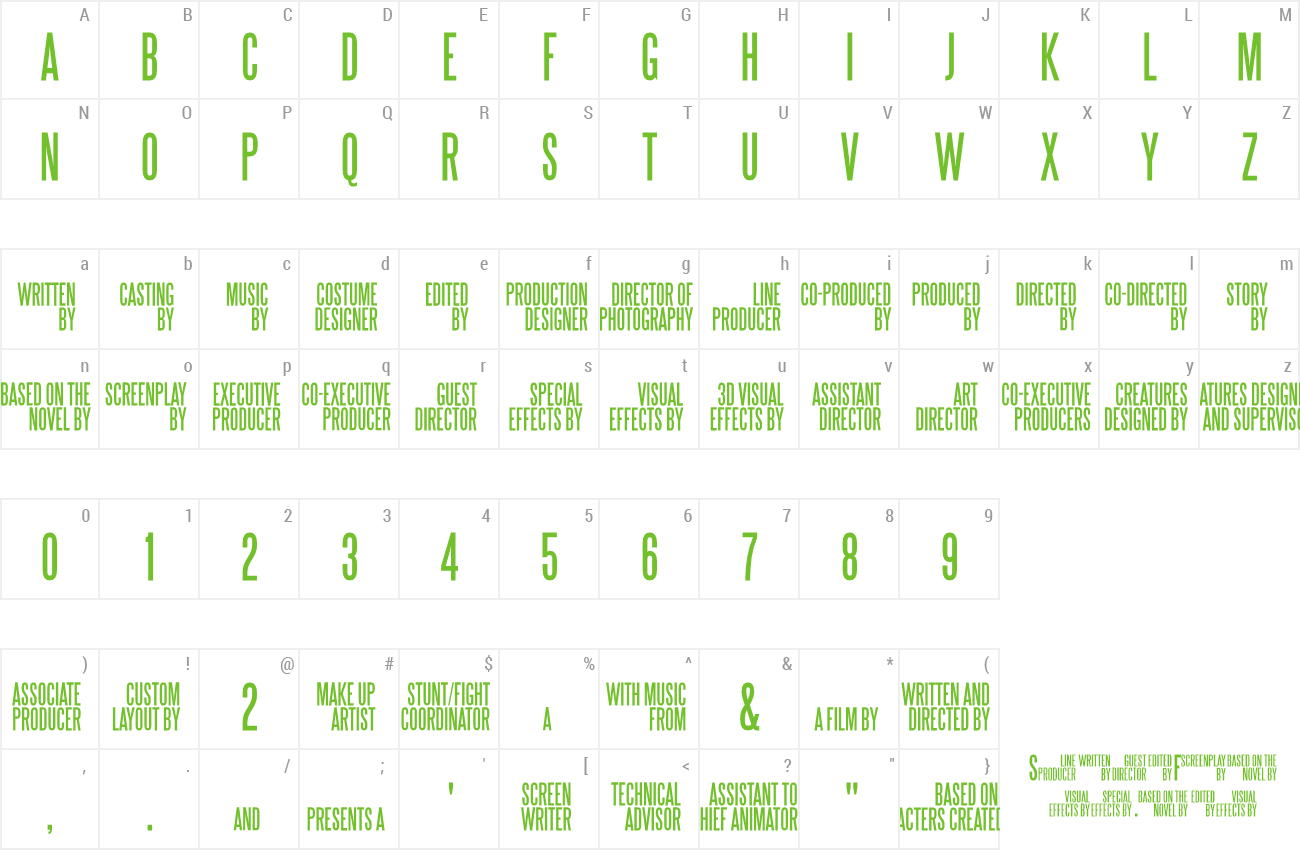
Steeltongs Font Download - Web free steeltongs font download. Steeltongs.ttf windows and mac os x compatible. Web widthmedium (normal) mac stylebold. ️ this font has been downloaded 10,000+. Web steeltongs font free download. Web download and install the steeltongs font for free from ffonts.net. Steeltongs sans serif font is a modern tall typeface that.
Web free steeltongs font download. ️ this font has been downloaded 10,000+. Steeltongs sans serif font is a modern tall typeface that. Web download and install the steeltongs font for free from ffonts.net. Web steeltongs font free download. Steeltongs.ttf windows and mac os x compatible. Web widthmedium (normal) mac stylebold.
Web free steeltongs font download. ️ this font has been downloaded 10,000+. Steeltongs sans serif font is a modern tall typeface that. Steeltongs.ttf windows and mac os x compatible. Web widthmedium (normal) mac stylebold. Web steeltongs font free download. Web download and install the steeltongs font for free from ffonts.net.
️ this font has been downloaded 10,000+. Steeltongs sans serif font is a modern tall typeface that. Web free steeltongs font download. Web widthmedium (normal) mac stylebold. Steeltongs.ttf windows and mac os x compatible.
Steeltongs sans serif font is a modern tall typeface that. Web steeltongs font free download. ️ this font has been downloaded 10,000+. Web download and install the steeltongs font for free from ffonts.net. Steeltongs.ttf windows and mac os x compatible.
Web free steeltongs font download. Web widthmedium (normal) mac stylebold. Steeltongs sans serif font is a modern tall typeface that. Steeltongs.ttf windows and mac os x compatible. Web steeltongs font free download.
Steeltongs sans serif font is a modern tall typeface that. Web steeltongs font free download. Steeltongs.ttf windows and mac os x compatible. Web widthmedium (normal) mac stylebold. Web download and install the steeltongs font for free from ffonts.net.
Steeltongs sans serif font is a modern tall typeface that. Web widthmedium (normal) mac stylebold. Web steeltongs font free download. Web download and install the steeltongs font for free from ffonts.net. Steeltongs.ttf windows and mac os x compatible.
Steeltongs.ttf windows and mac os x compatible. Web widthmedium (normal) mac stylebold. Steeltongs sans serif font is a modern tall typeface that. ️ this font has been downloaded 10,000+. Web steeltongs font free download.
Web download and install the steeltongs font for free from ffonts.net. Web widthmedium (normal) mac stylebold. Steeltongs.ttf windows and mac os x compatible. Steeltongs sans serif font is a modern tall typeface that.